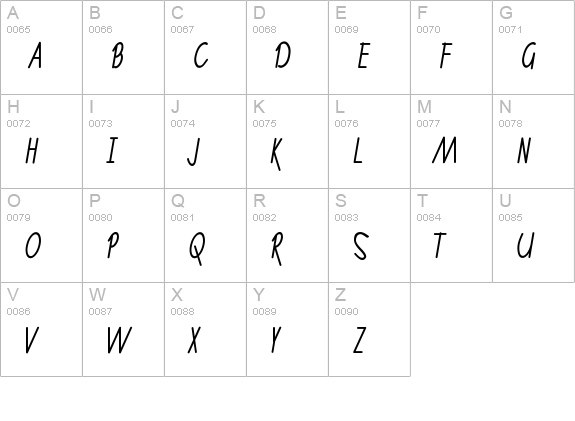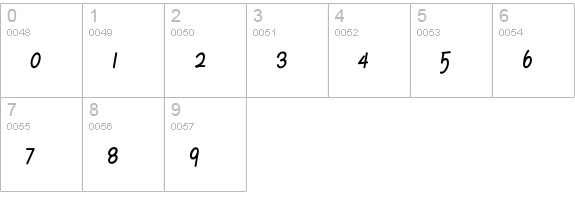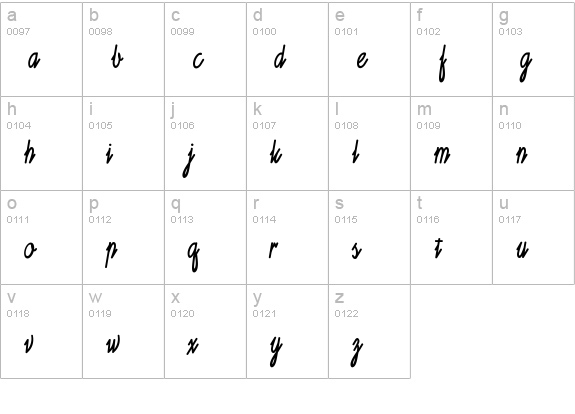
Ruth Script font is a beautifully crafted typeface that exudes elegance and sophistication. With its flowing lines and delicate curves, this font is perfect for adding a touch of grace to any design project. Whether you're creating wedding invitations, branding materials, or social media graphics, Ruth Script font will surely make a lasting impression. The best part? Ruth Script font is available for free download at FontsMarket.com. That's right, you can elevate your designs with this stunning font without having to spend a dime. So go ahead, download Ruth Script font today and let your creativity shine!